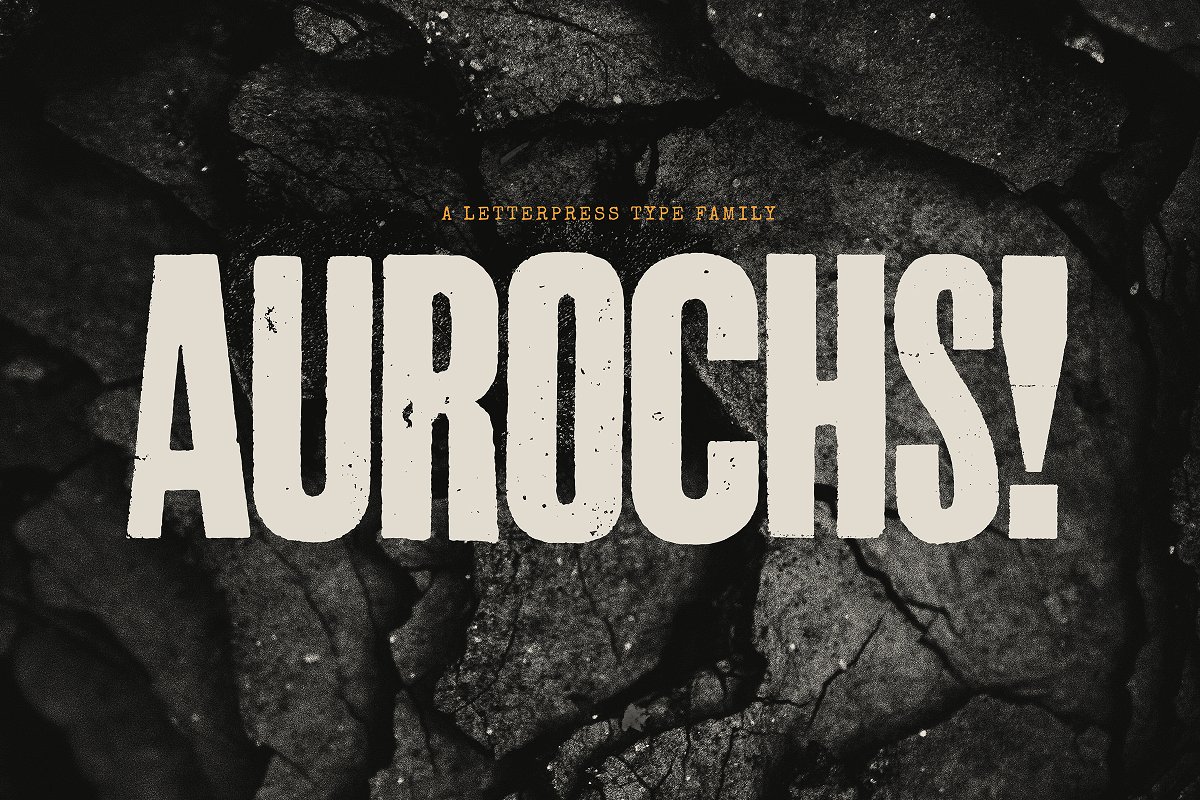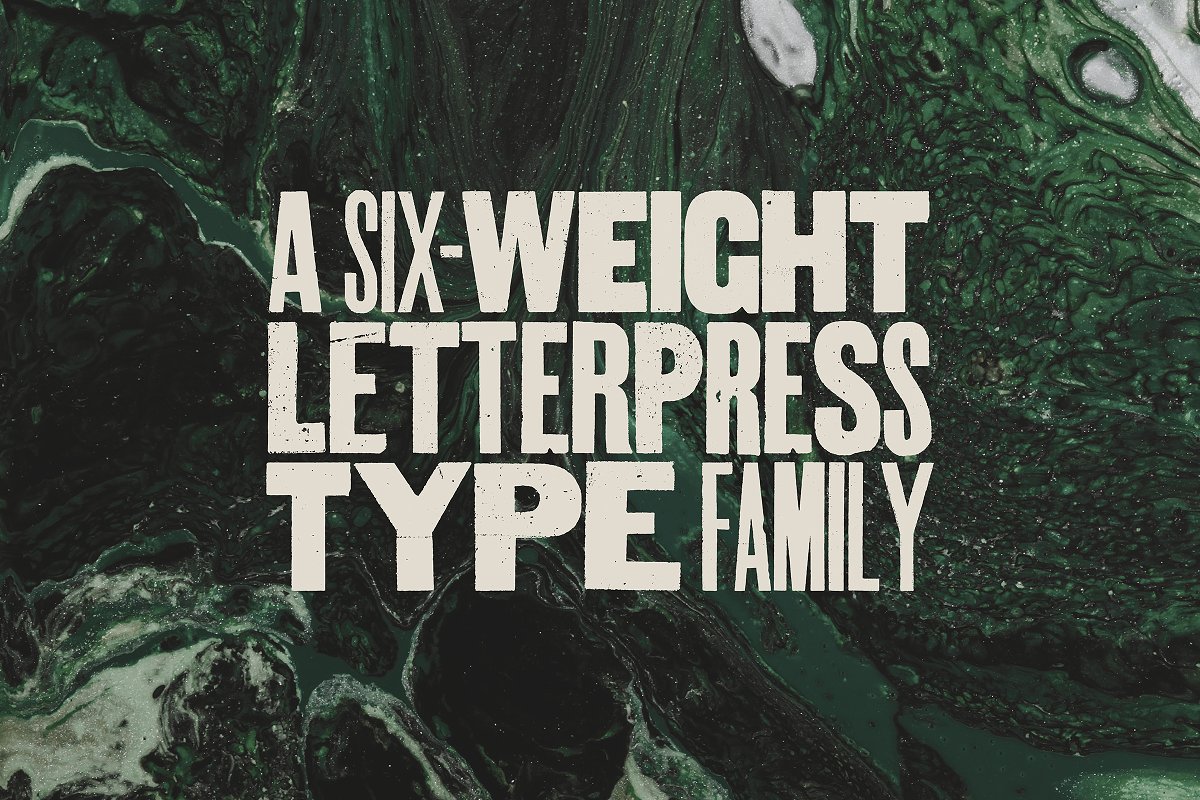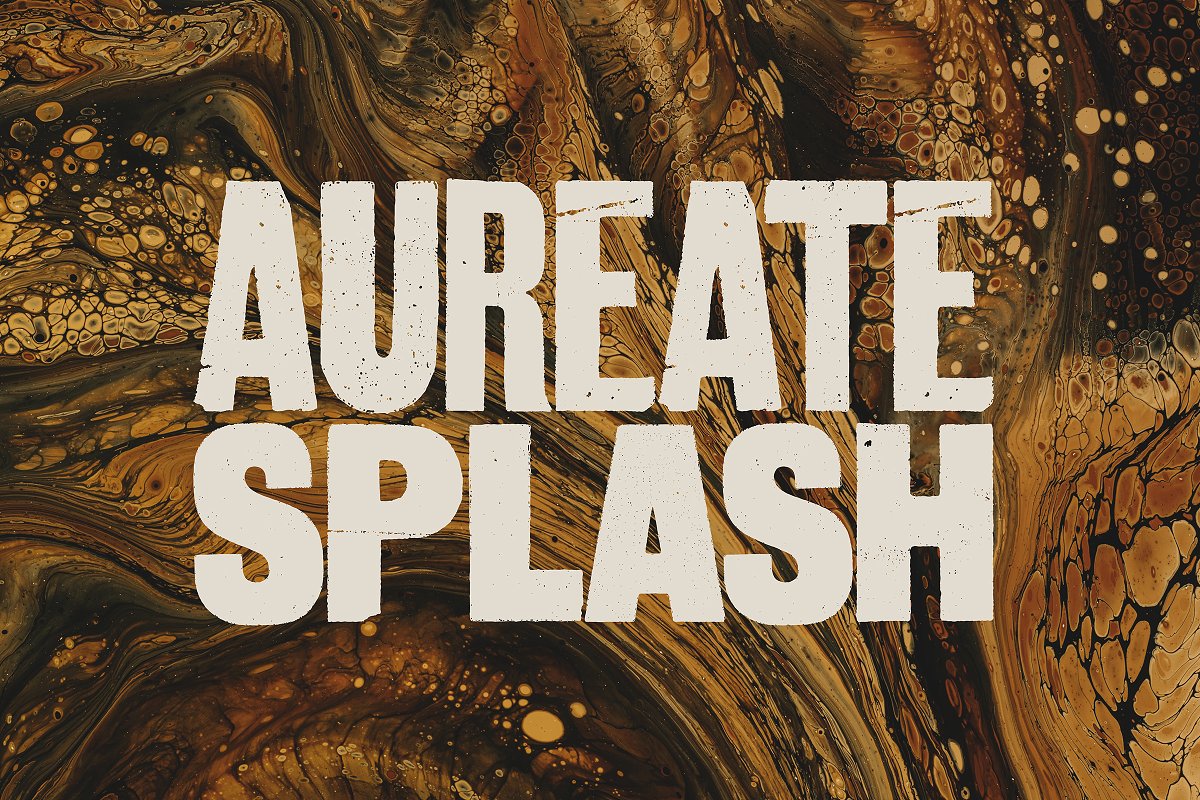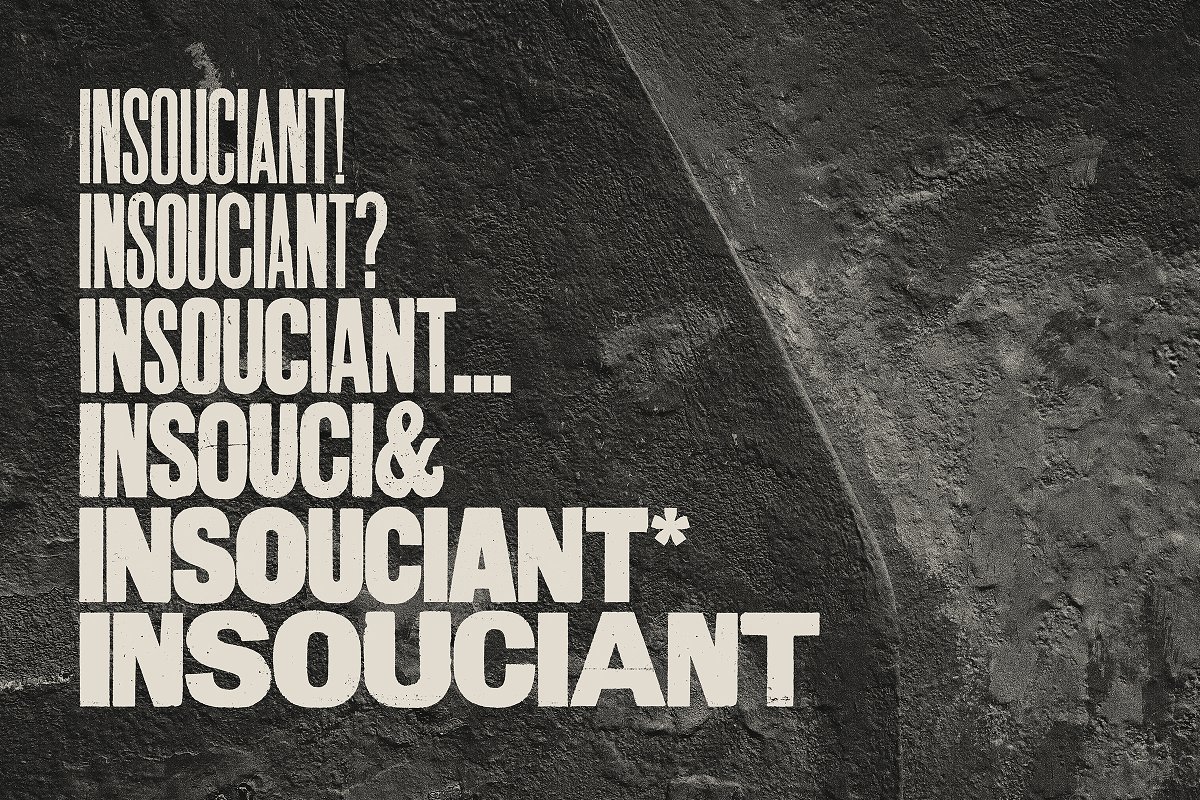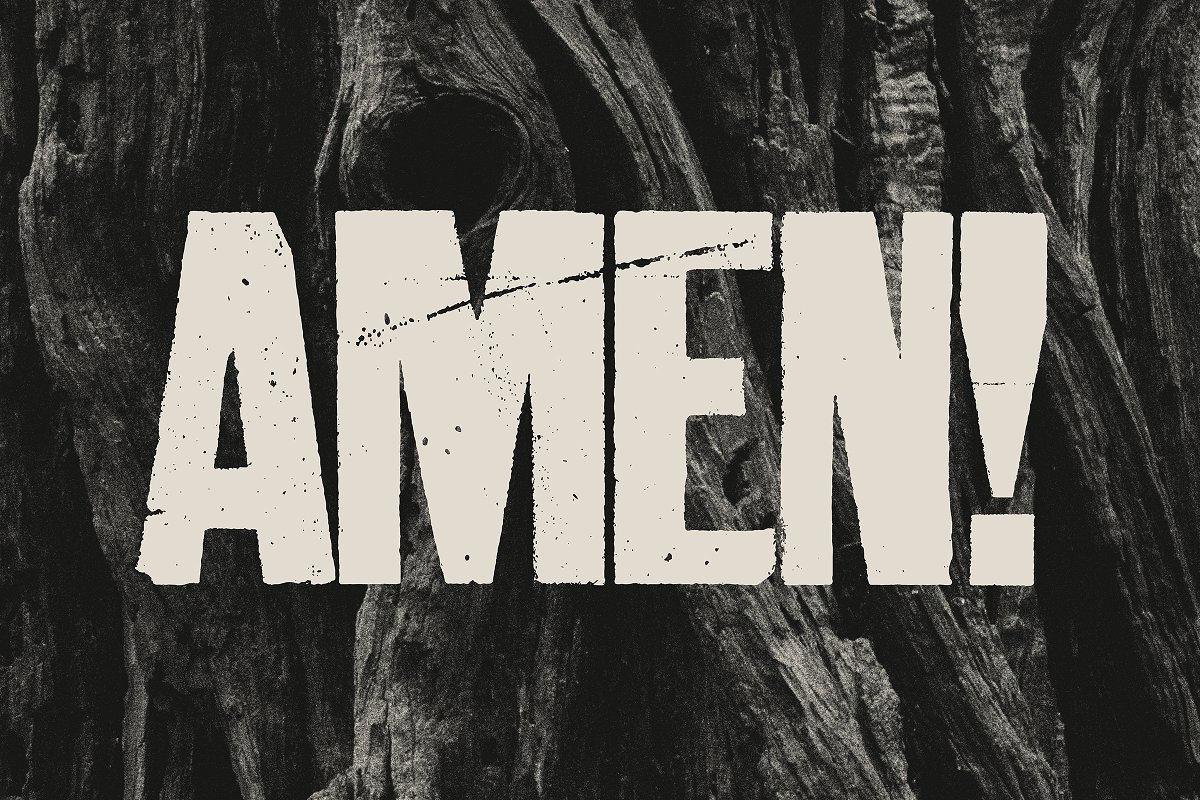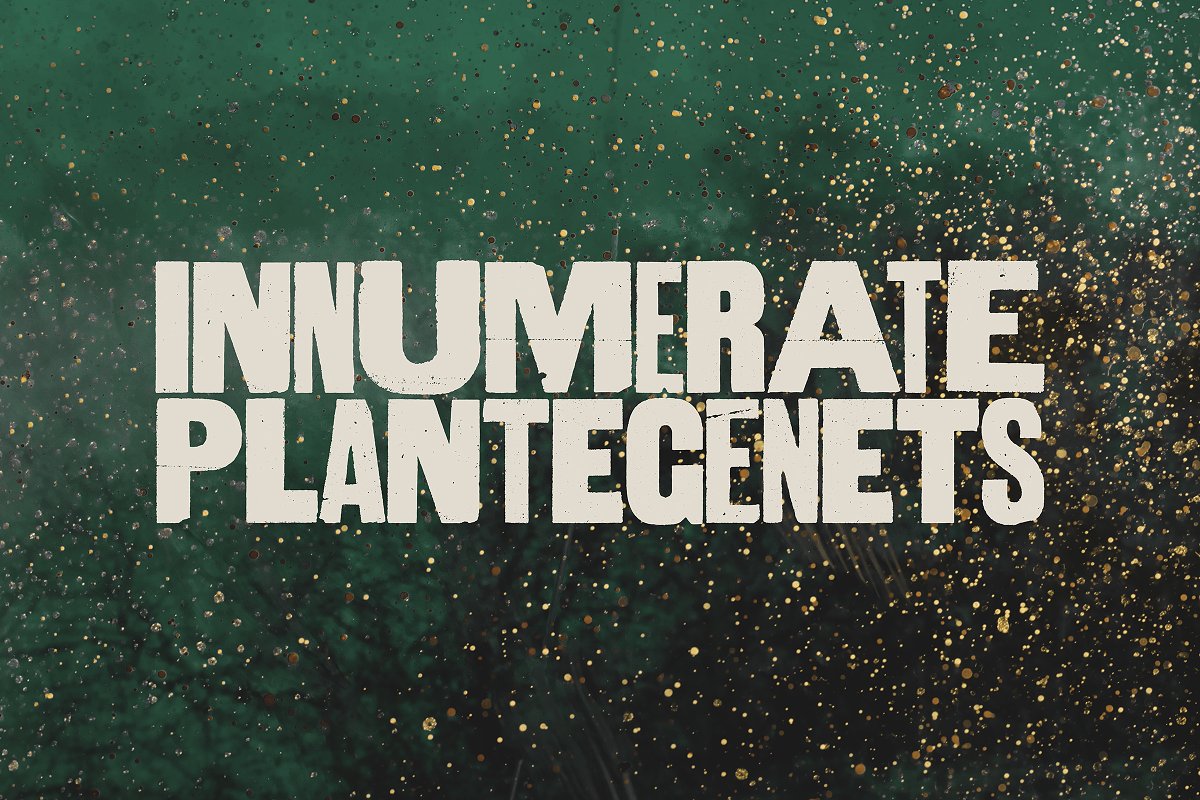
About the Aurochs letterpress type family Font
Aurochs is a display type family in six weights, developed from scans of vintage letterpress and woodblock prints, Aurochs evokes the original typographic wild west, when letterforms were handmade, imperfect and often mismatched, with various weights and styles jumbled together in a kind of controlled chaos, Perfect for editorial design, branding, and posters